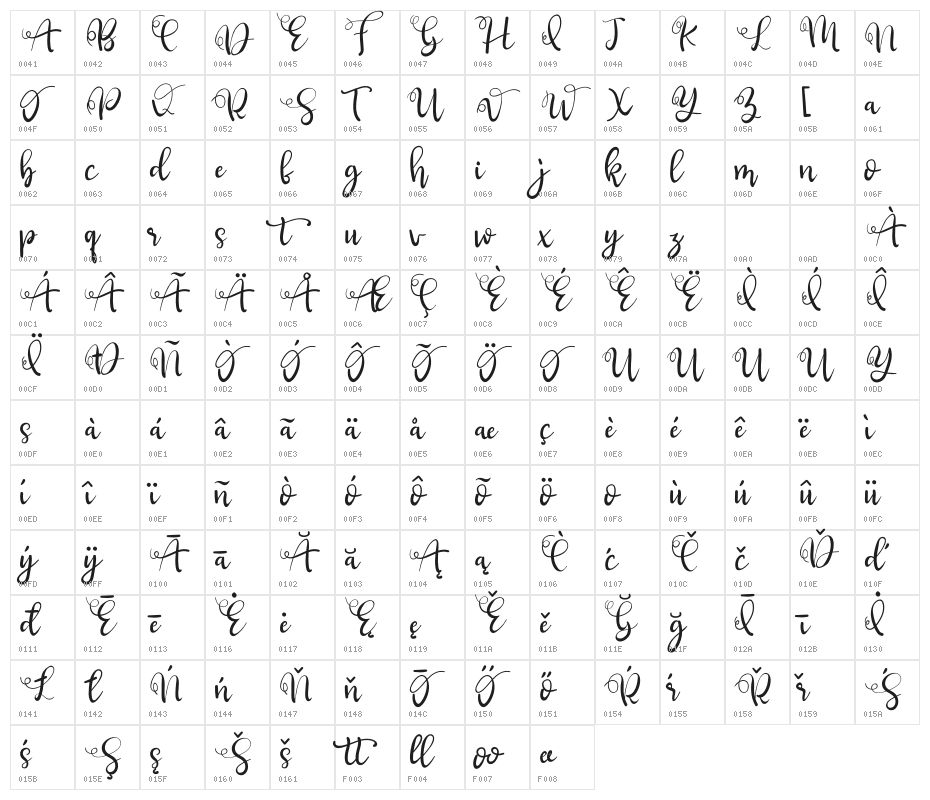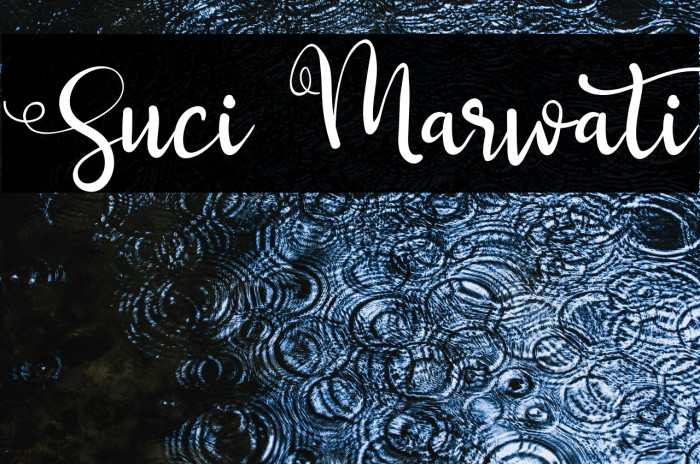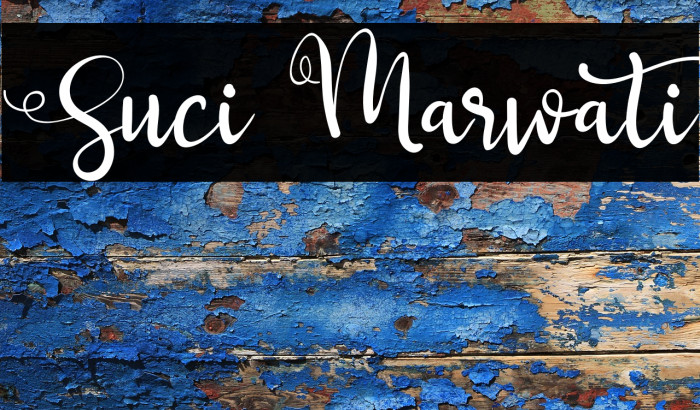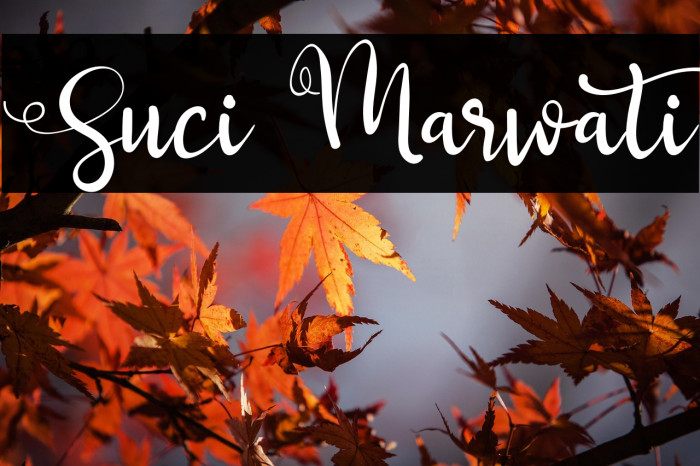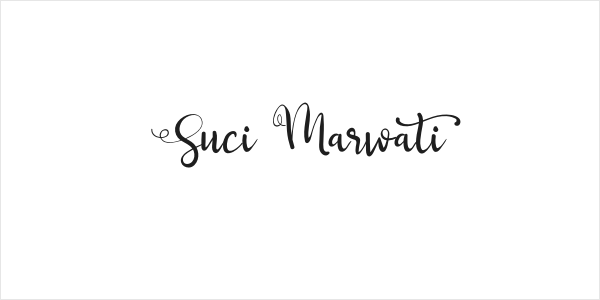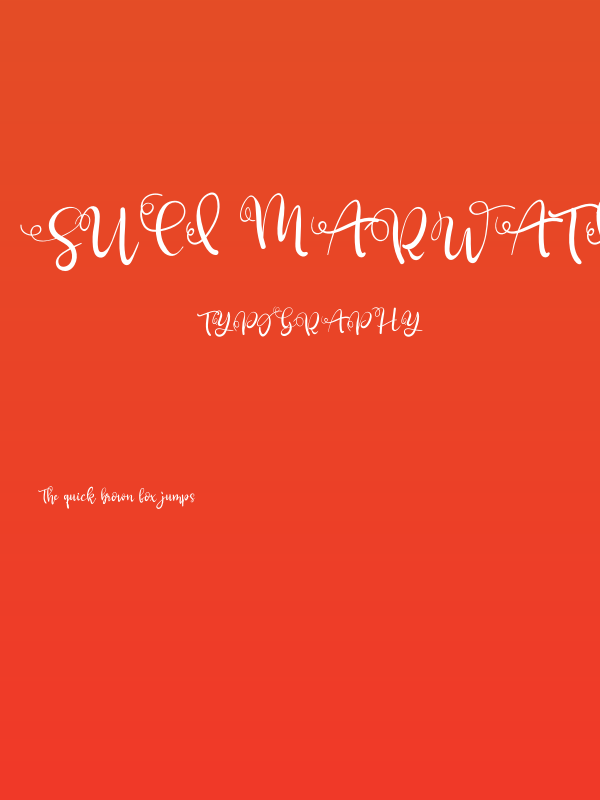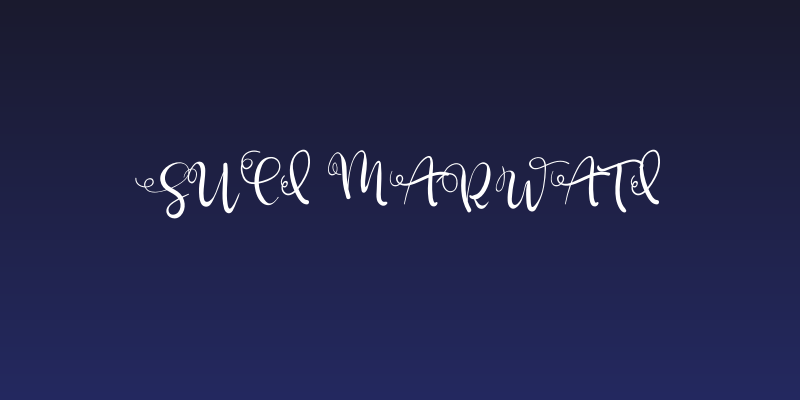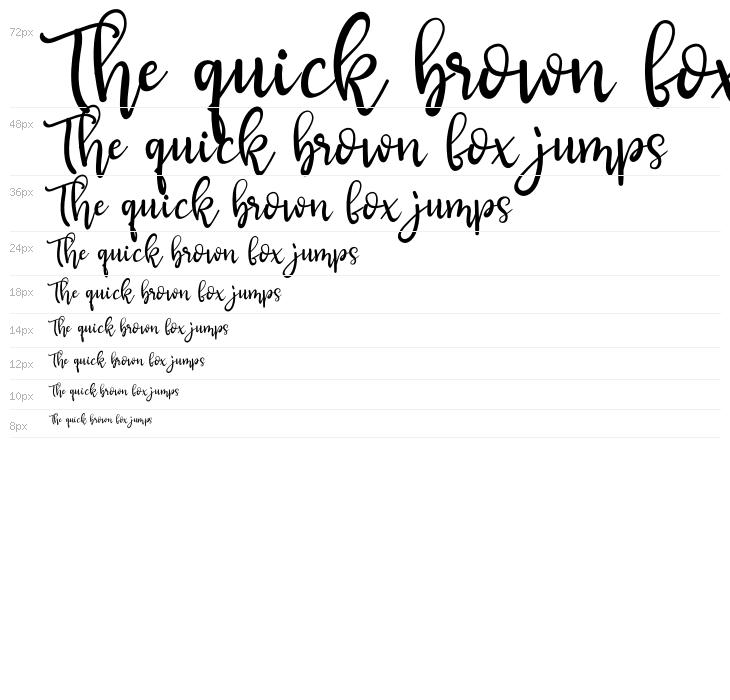
Suci Marwati Font
Suci Marwati Description
This font features an elegant and flowing script style with intricate swirls and loops that add a touch of sophistication and charm. The uppercase letters are adorned with decorative flourishes, making them stand out with a whimsical flair. The lowercase letters maintain a consistent and smooth flow, enhancing readability while retaining the font's artistic essence. The overall design is both graceful and dynamic, suitable for projects that require a personal and artistic touch. The absence of numbers and special characters suggests a focus on decorative text applications.